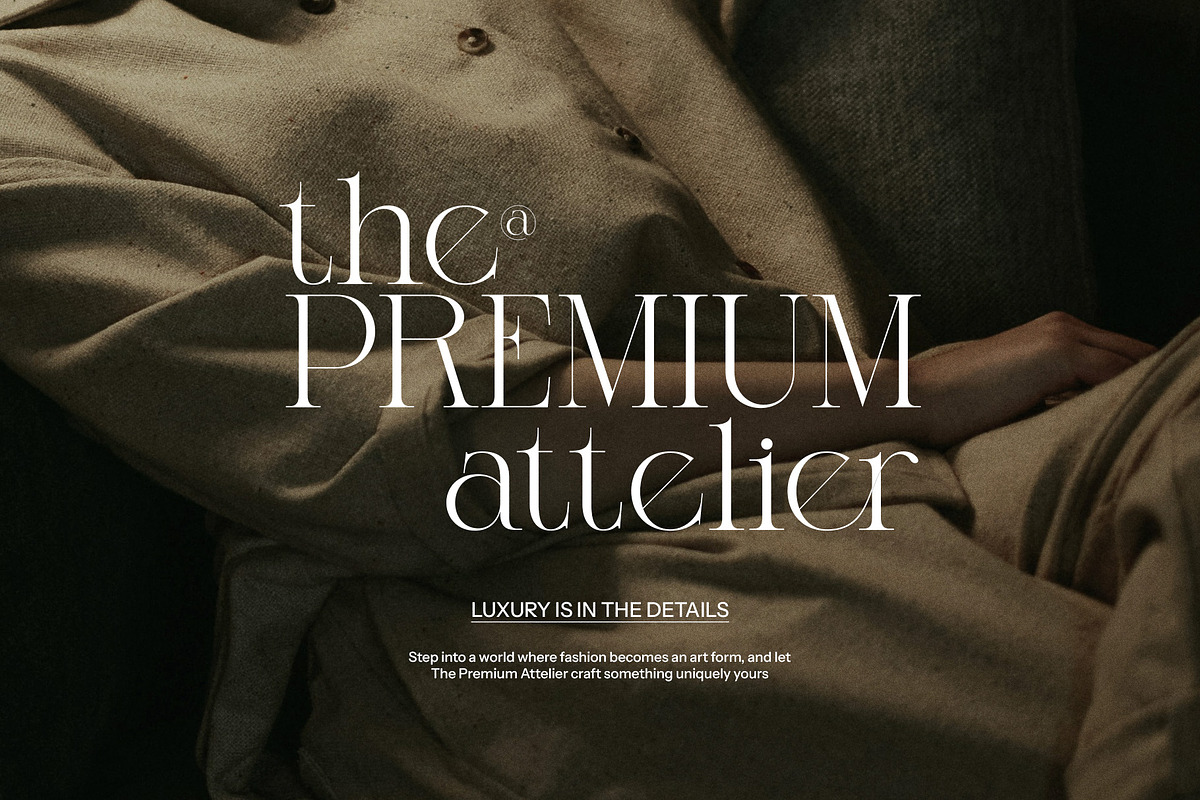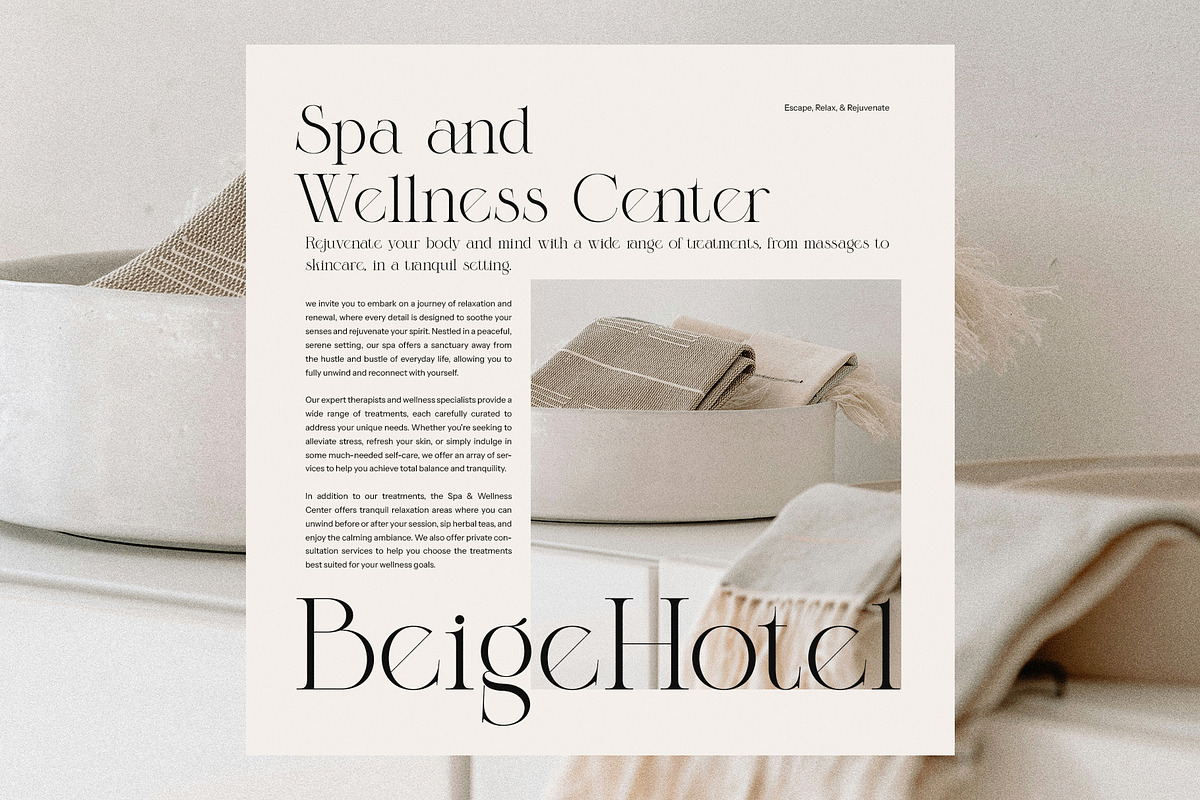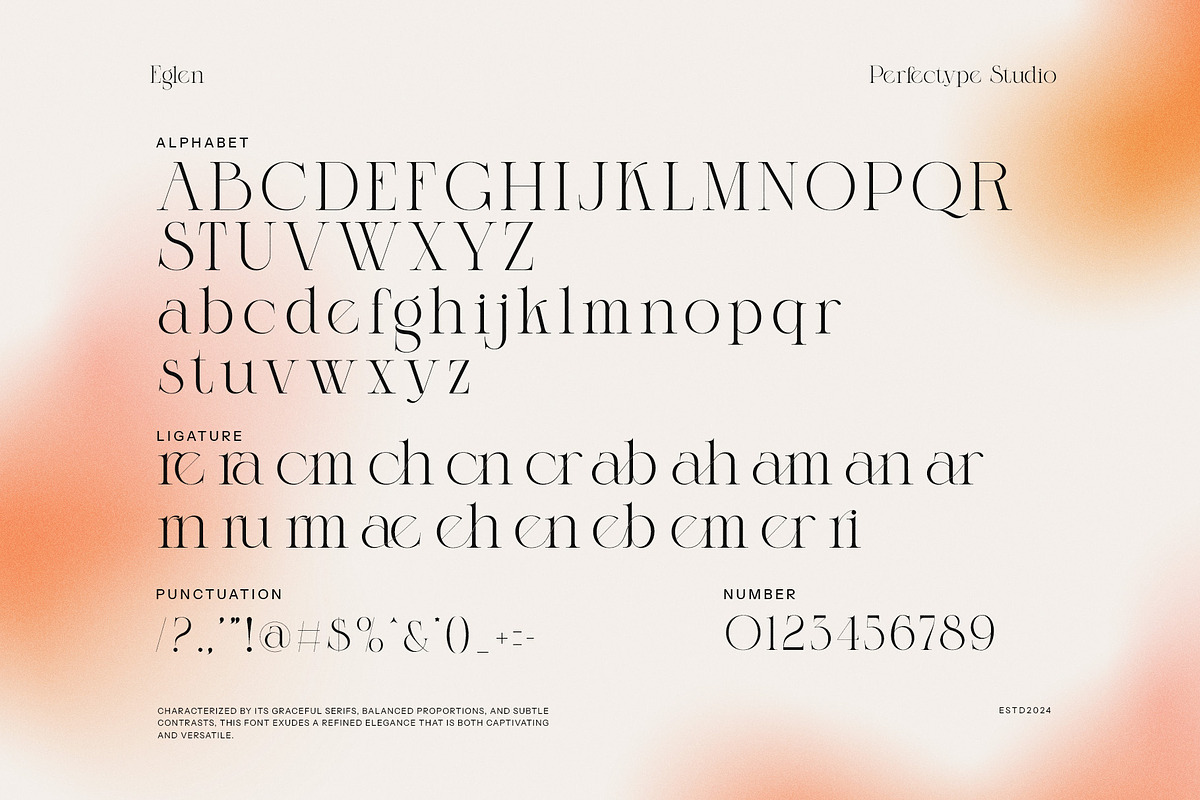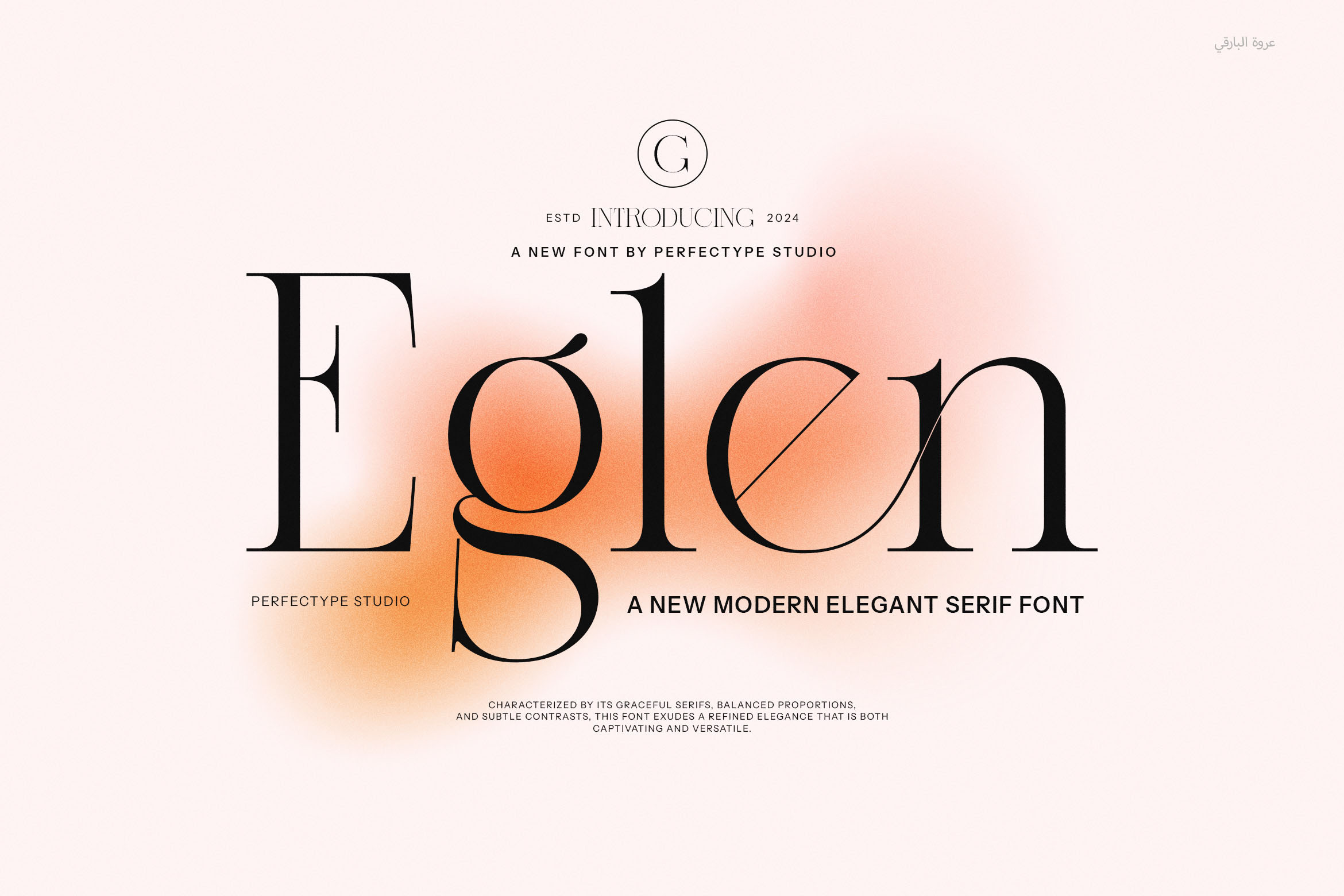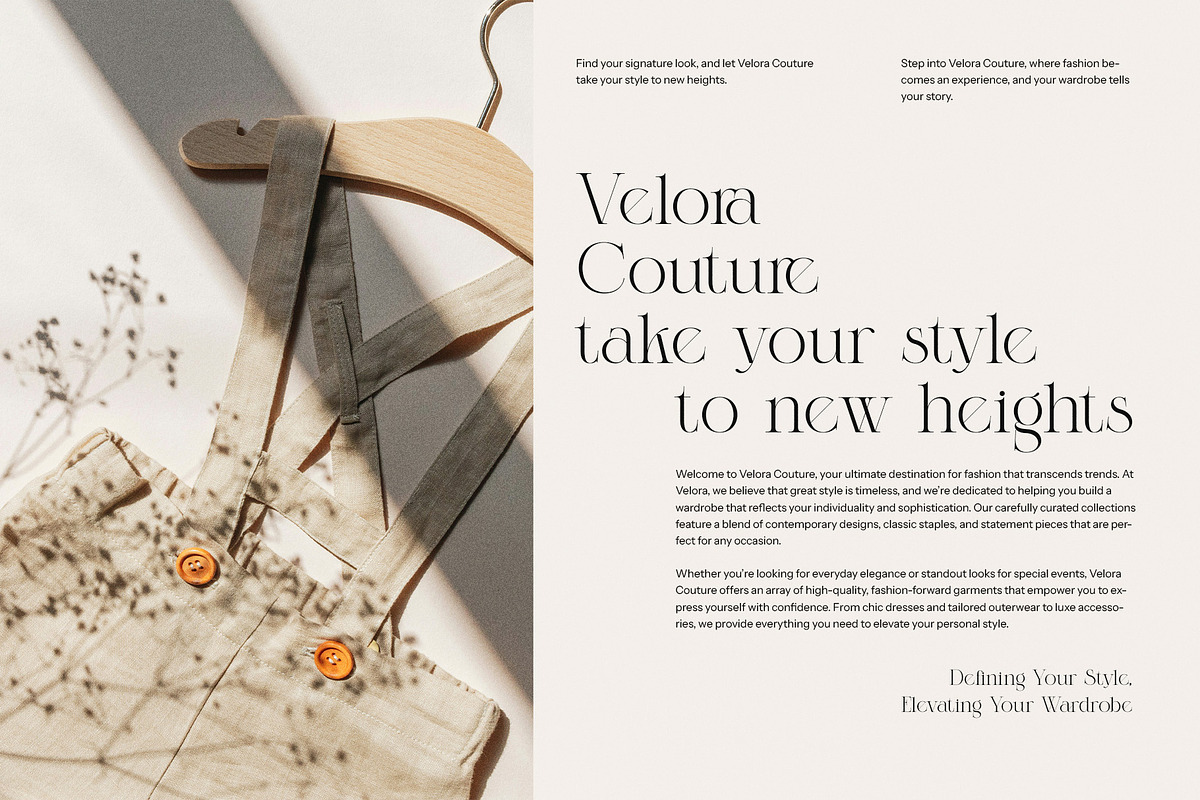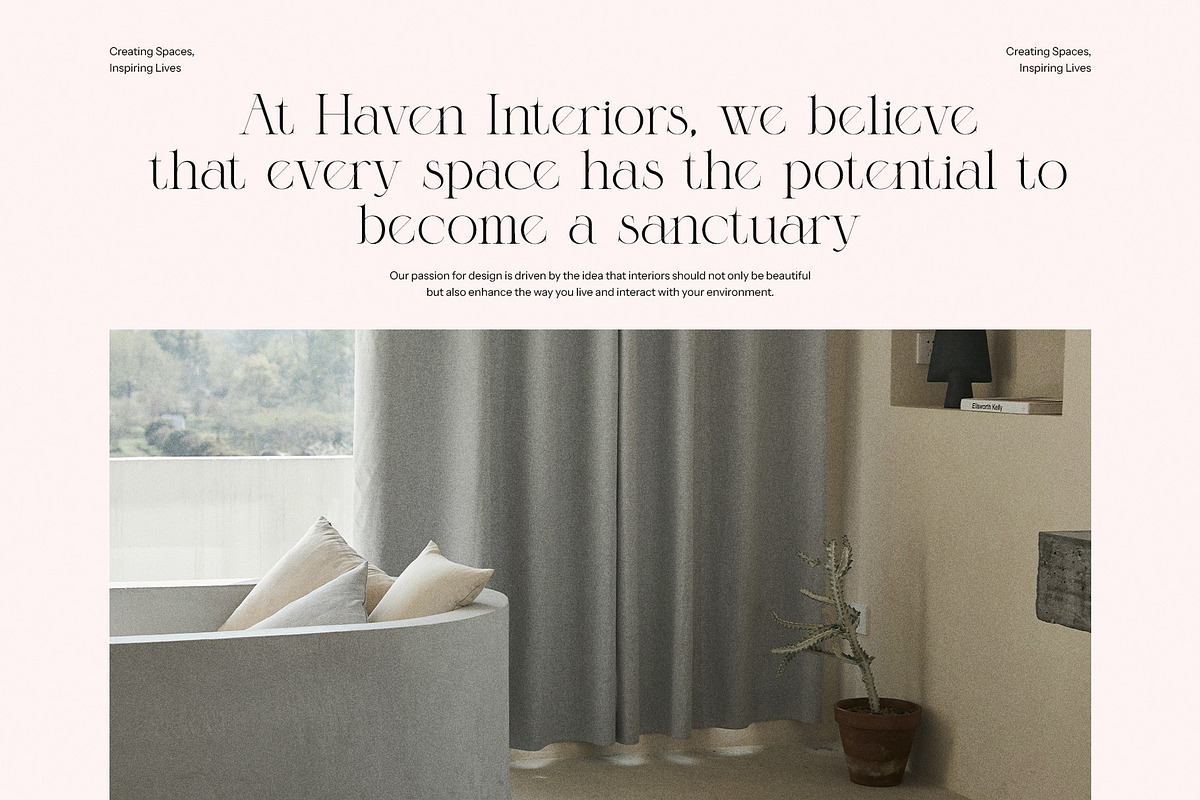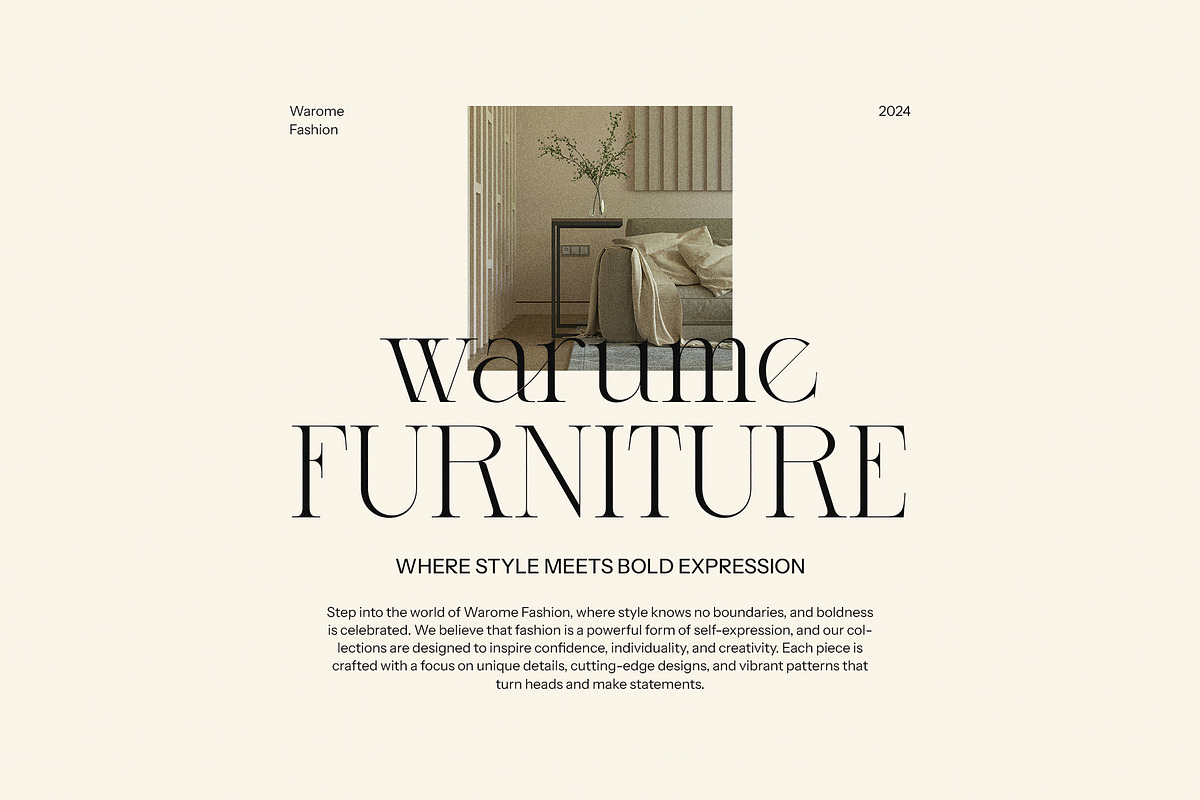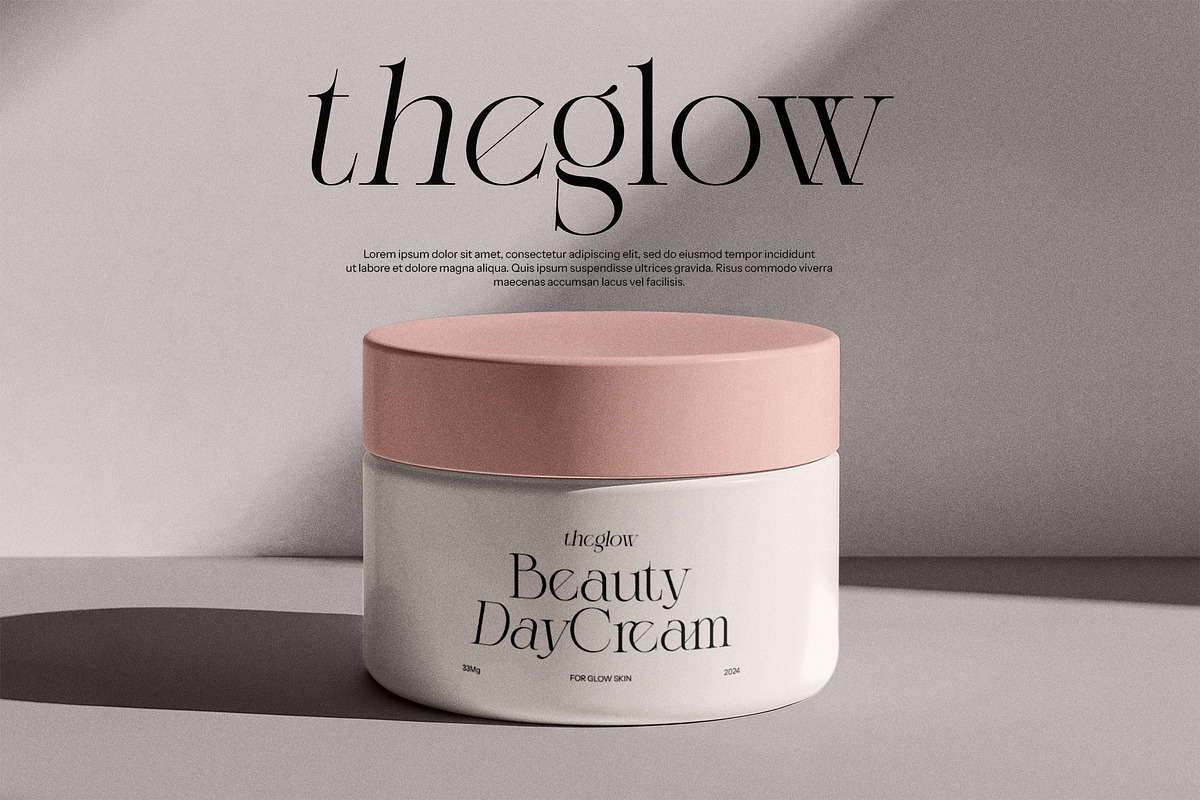
Eglen Elegant Serif Font
Introducing the Eglen Serif Font a captivating typeface that embodies a perfect blend of elegance and vintage charm. With its carefully crafted serifs and graceful curves, Eglen Serif is designed to make a statement in any setting. Each character showcases exquisite ligatures, enhancing the font's sophistication and allowing for seamless transitions between letters, creating a harmonious flow that elevates your typography to new heights.
This versatile font is ideal for a multitude of applications, including logo design, branding projects, magazine layouts, product packaging, and advertising materials. Its classic yet contemporary aesthetic makes it suitable for both modern and traditional designs, ensuring it resonates with a diverse audience. Whether you're creating a high-end brand identity or an inviting editorial spread, Eglen Serif brings an air of refinement that captivates and engages.
In addition to its visual appeal, Eglen Serif is designed for readability, making it an excellent choice for both print and digital formats. Its well-balanced structure ensures clarity at various sizes, from headlines to body text. The font's character set is comprehensive, allowing for multilingual use and versatility in creative projects.
Elevate your design work with the distinctive character of Eglen Serif Font. Let its elegant features and vintage essence inspire your creativity and enhance your brand’s storytelling, making every project a true work of art.